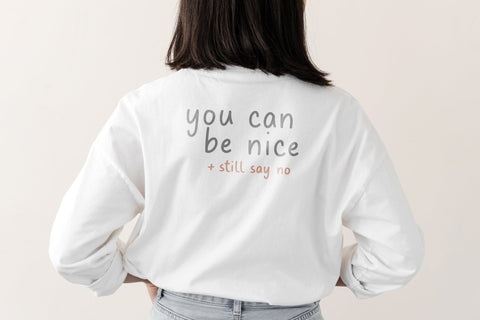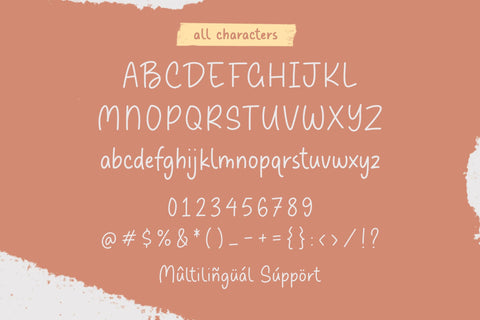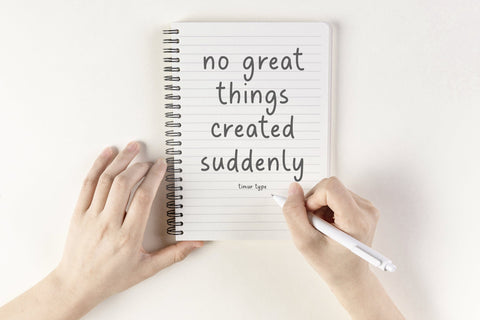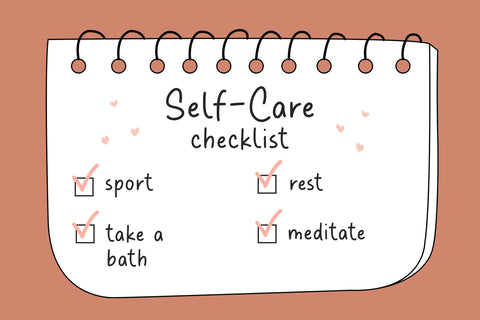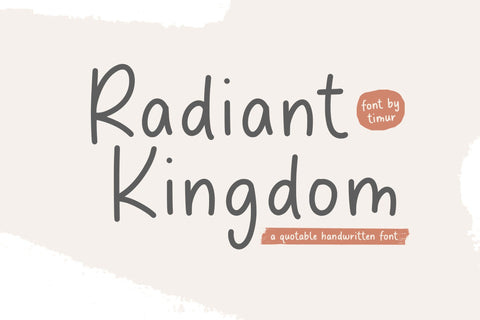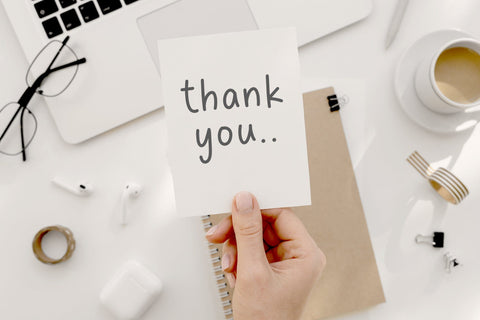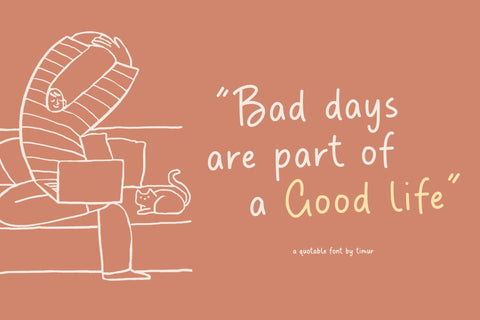
Radiant Kingdom - Quotable Handwritten Font
Radiant Kingdom is a Quotable Handwritten Font
This font enhances your words with a font that is not just handwritten but also a charming masterpiece. Each stroke weaves a story of intrigue, making each quote a journey through the art of expression. Quotable and irresistible – let your writing leave an indelible mark.
Radiant Kingdom Font also supports multilingualism.